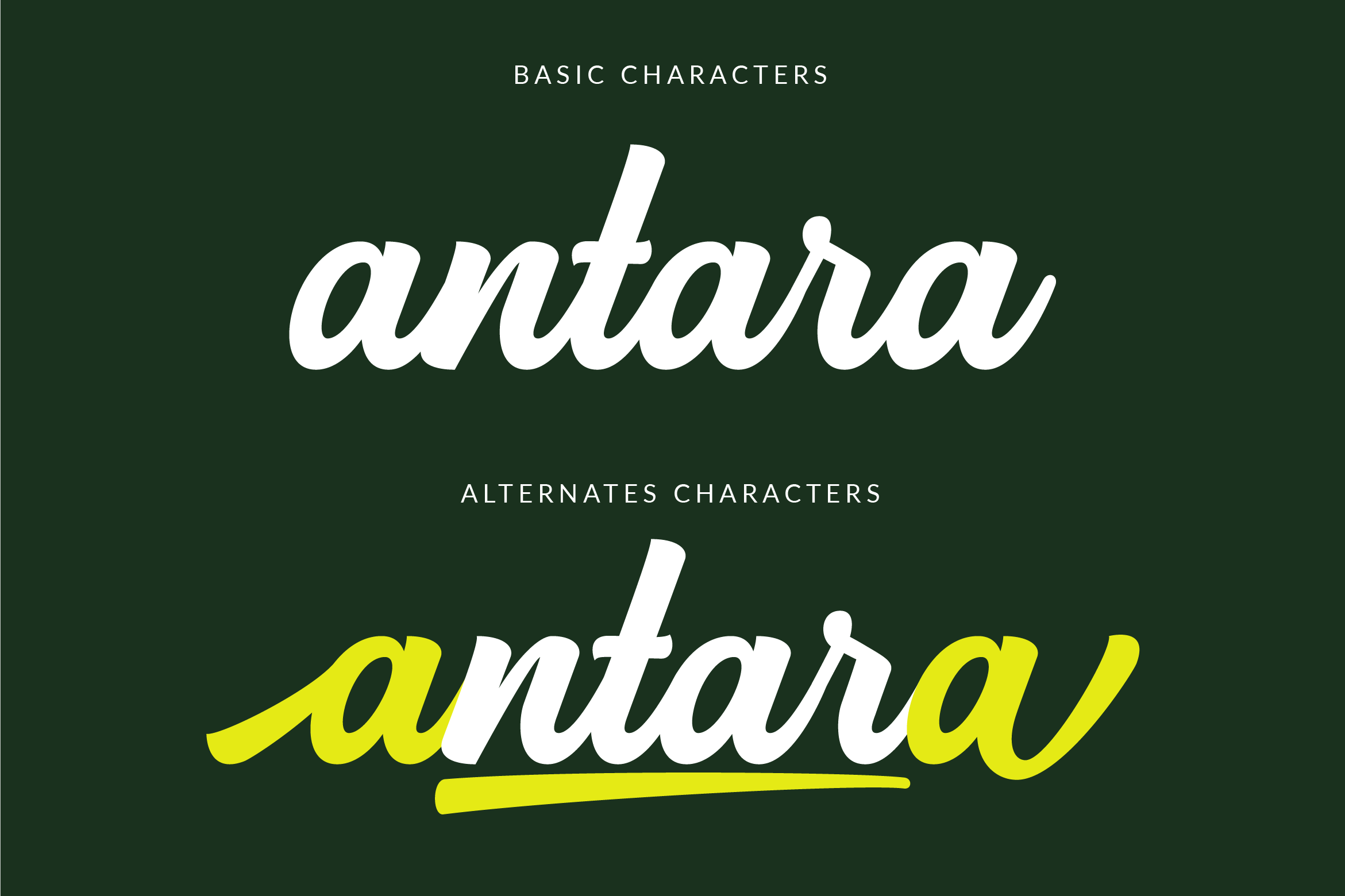
Backstone Script Font
It’s a daring handwritten font created with brush pen strokes. This bold font will beautify and emphasize your design. Add it confidently to your projects, and you will love the results.